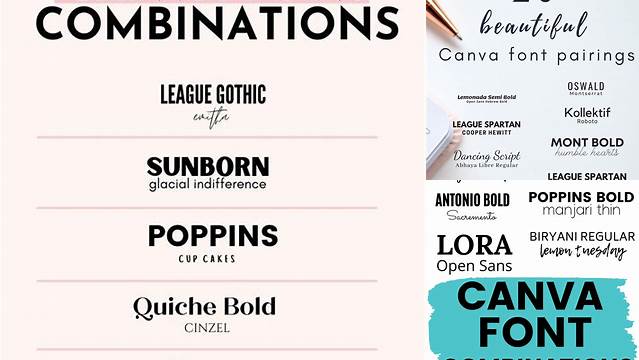
Best Canva Font Pairings For Stunning Posters
Hey guys! Ever find yourself staring at a blank canvas in Canva, totally stumped on which fonts to pair together? Choosing the right fonts is like picking the perfect outfit – it can make or break your design! In this article, we're going to dive into some killer Canva font combinations that will take your posters from drab to fab. We'll explore different font pairings, talk about why they work, and give you some tips and tricks to create visually appealing posters that grab attention. Get ready to amp up your design game!
Why Font Combinations Matter for Poster Design
Alright, let's get real – why should you even care about Canva font combinations? Well, think of your poster as a visual conversation. The fonts you choose are the voice, tone, and personality of that conversation. Choosing the wrong fonts can send the wrong message or make your poster look cluttered and unprofessional. On the flip side, the right font pairing can make your poster pop, communicate your message clearly, and create a strong visual impact.
First off, font combinations help establish a visual hierarchy. This means guiding the viewer's eye through your poster in a logical way. By using different fonts for headings, subheadings, and body text, you create a clear structure that makes your information easy to digest. Imagine trying to read a book where every word is in the same size and style – it would be a total mess, right? The same principle applies to posters. A well-chosen font combination creates a sense of order and helps the viewer understand what's most important. Strong font pairing can help with visual hierarchy.
Then there's the impact on branding and communication. Fonts evoke emotions and associations. A sleek, modern font might be perfect for a tech company, while a more playful font could be great for a children's event. When you consistently use the same font combinations across your posters, you build brand recognition and create a consistent visual identity. This helps people remember your brand and associate it with certain qualities. For example, think about Coca-Cola – you instantly recognize their font, right? That's the power of consistent branding through font choices. You can start with using different font combinations.
Finally, good Canva font combinations enhance readability. Choosing fonts that complement each other and are easy to read ensures that your message gets across. Avoid pairing fonts that are too similar in style or size, as this can make your text blend together and be difficult to read. Also, consider the context of your poster. A font that works well for a large headline might not be the best choice for small body text. Always prioritize readability to make sure your audience can understand what you're trying to say. Choosing a good font combination also helps with readability for readers.
Top Canva Font Pairings to Try
Ready to unleash your inner designer? Let's explore some fantastic Canva font combinations that you can easily use in your posters! I'm going to break down some classic pairings, along with tips on when and how to use them. So, get ready to create posters that will make everyone say, "Wow!"
1. Montserrat and Open Sans
This combo is a total classic for a reason. Montserrat and Open Sans are both clean, modern sans-serif fonts that work incredibly well together. Montserrat is a bit bolder and more attention-grabbing, making it perfect for headlines and titles. Open Sans is super readable and versatile, ideal for body text and smaller details. This pairing is like peanut butter and jelly – a tried-and-true combo that always delivers.
- When to use it: This pairing is perfect for a wide range of posters, from event announcements to promotional materials. It's clean, versatile, and easy on the eyes. Try using Montserrat for your main title and Open Sans for any additional information, such as dates, times, or details.
- Why it works: Both fonts have a similar x-height (the height of the lowercase "x"), which creates a sense of visual harmony. They also offer great contrast, which ensures that your text is easy to read. These are two very good font combinations.
2. Playfair Display and Raleway
If you want to add a touch of elegance to your poster, then this is your go-to Canva font combination. Playfair Display is a beautiful, high-contrast serif font with a classic feel. It's ideal for headlines and titles that need to make a statement. Raleway is a clean, geometric sans-serif font that pairs perfectly with Playfair Display. It provides a nice balance and ensures your poster doesn't feel too heavy or formal. These font combinations can be useful.
- When to use it: This combo is perfect for posters that need to convey a sense of sophistication, such as invitations, event promotions, or branding materials.
- Why it works: Playfair Display adds a touch of elegance, while Raleway keeps the design modern and accessible. The contrast between the serif and sans-serif fonts creates visual interest without overwhelming the viewer. It is a great font to use for your poster.
3. Bebas Neue and Lato
Want a bold, modern look? Bebas Neue and Lato are a dynamic duo. Bebas Neue is a tall, condensed sans-serif font that's perfect for headlines and titles. It's super attention-grabbing. Lato is a friendly, rounded sans-serif font that works great for body text and subheadings.
- When to use it: This combo works well for posters that need to convey a sense of energy and modernity, such as event posters, social media graphics, or promotional materials. It's perfect for grabbing attention in a fast-paced environment.
- Why it works: The contrast between Bebas Neue's boldness and Lato's readability creates a dynamic and eye-catching design. It's easy to read, the font is visually appealing.
4. Oswald and Source Sans Pro
Oswald and Source Sans Pro are another great pairing, offering a clean and professional look. Oswald is a condensed sans-serif font, perfect for headlines, and is designed for digital displays. Source Sans Pro, created by Adobe, is a versatile sans-serif font that's ideal for body text and subheadings. This is a good Canva font combination.
- When to use it: This combination is perfect for professional posters, educational materials, or any design that requires a clear and concise presentation.
- Why it works: Oswald's condensed style makes it great for titles, while Source Sans Pro ensures your text is readable and easy to understand. The fonts complement each other.
Tips for Choosing the Right Font Combinations
Okay, you've got the basics, but how do you choose the perfect Canva font combinations for your specific poster? Here are some pro tips to help you out.
1. Consider Your Message
What are you trying to communicate? Is your poster for a fun event, a serious announcement, or a product promotion? The tone of your message should influence your font choices. If you're creating a poster for a kids' party, a playful, whimsical font like Comic Neue could be perfect. For a corporate event, a more professional and clean font pairing like Montserrat and Open Sans is more appropriate. Always remember to consider the message.
2. Think About Readability
Readability is key! Make sure your fonts are easy to read, especially at the size you'll be using them. Avoid fonts that are overly ornate or difficult to decipher. Test out your font choices at different sizes to see how they look. It's a good idea to make sure all the words are readable.
3. Balance Contrast and Harmony
Good font combinations strike a balance between contrast and harmony. You want enough contrast to create visual interest and help differentiate between headings and body text, but you also want your fonts to complement each other. Avoid pairings that clash or are too similar. Experiment with different weights, styles, and sizes to find the right balance. Ensure the contrast is good.
4. Limit the Number of Fonts
While it can be tempting to use a bunch of different fonts, it's generally best to stick to just two or three. Too many fonts can make your poster look cluttered and unprofessional. Choose a headline font, a body text font, and maybe a third font for accent or emphasis. Keep it simple and easy to follow. The lesser amount of fonts you use, the better the poster will turn out.
5. Use Font Pairing Tools
If you're still feeling lost, there are tons of online tools that can help you find the perfect Canva font combinations. Websites like FontPair, FontJoy, and Canva's own font pairing suggestions can provide inspiration and help you discover new pairings. Don't be afraid to explore and experiment! Font pairing tools can be useful.
Bringing It All Together: Creating Your Poster
So, you've got your fonts picked out, your message is clear, and you're ready to create your poster in Canva. Here's a quick rundown of the steps to make sure your design is top-notch:
- Choose Your Template: Canva offers tons of poster templates. Start with a template that matches your needs or start from scratch with a blank canvas.
- Select Your Fonts: Use the font combinations you've chosen. Make sure the fonts are used correctly.
- Add Your Content: Write your headline, body text, and any other information you need to include.
- Adjust the Layout: Arrange your text, images, and other elements in a way that's visually appealing and easy to understand. Consider using a grid to create a sense of order.
- Play with Colors: Choose colors that complement your fonts and message. Consider using a limited color palette to avoid a cluttered look.
- Add Visuals: Include images, illustrations, or icons to make your poster more engaging.
- Review and Revise: Get a fresh pair of eyes to look over your design and make any necessary revisions. Make sure everything is perfect.
Choosing the right Canva font combinations is a crucial part of creating stunning posters. By understanding why font pairings matter, exploring different options, and following these tips, you can create designs that grab attention and communicate your message effectively. So go ahead, experiment with different combinations, have fun, and let your creativity shine! Happy designing, everyone!